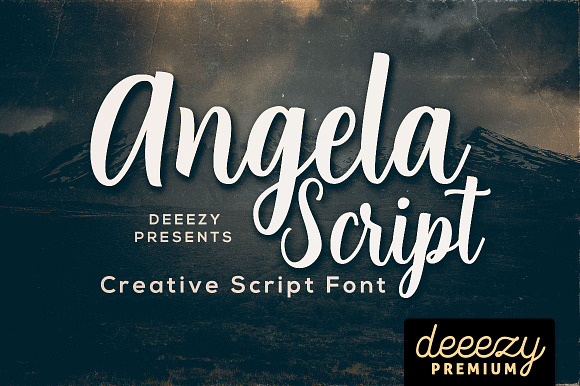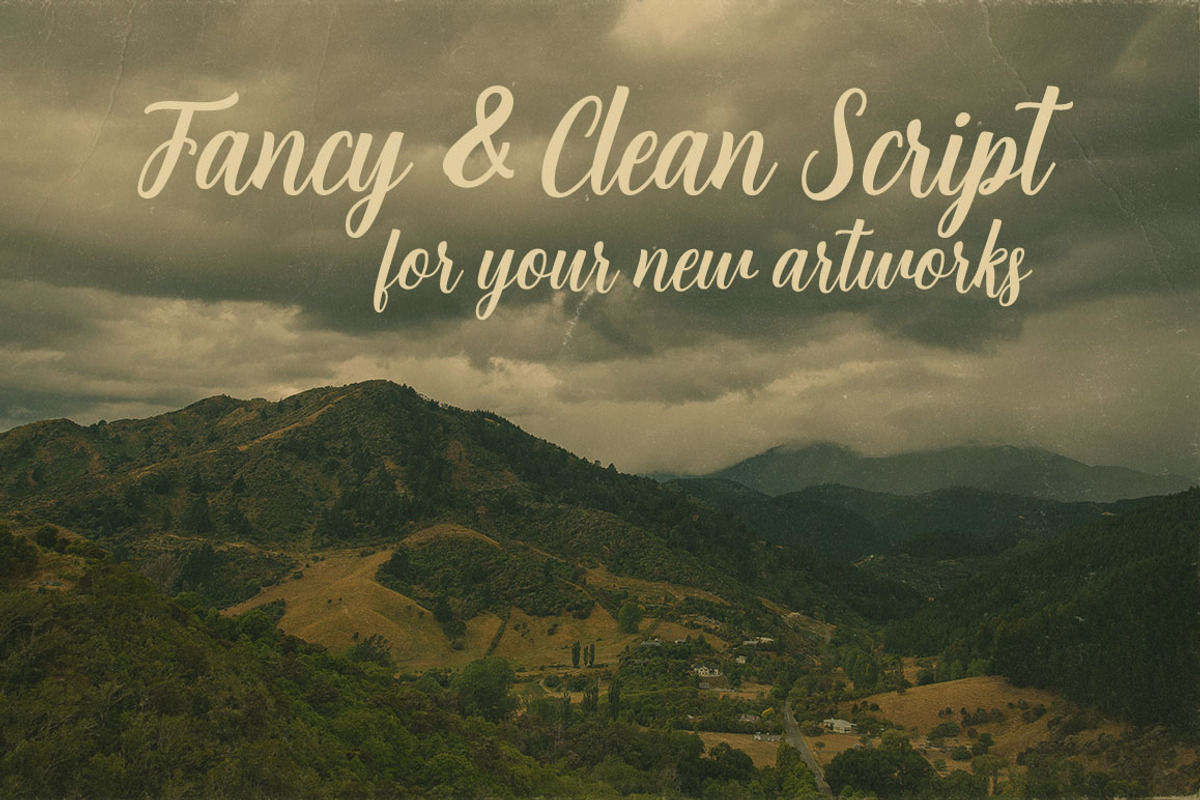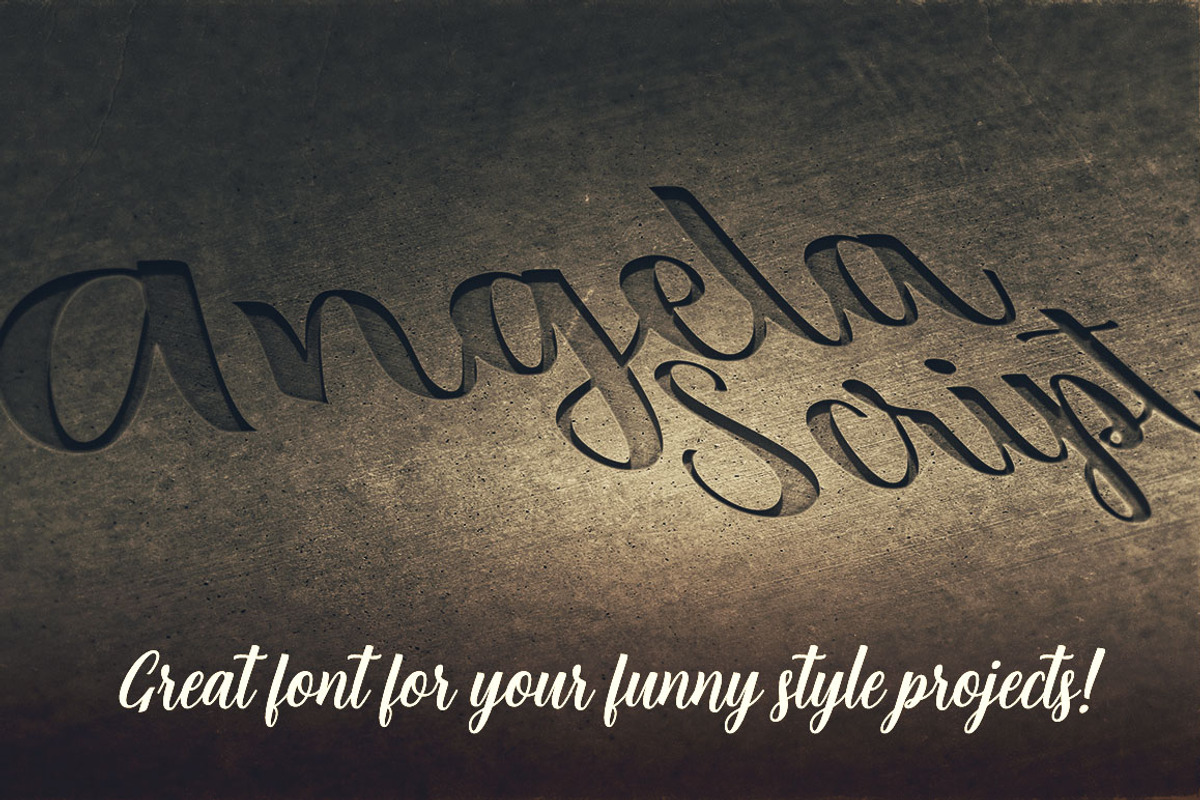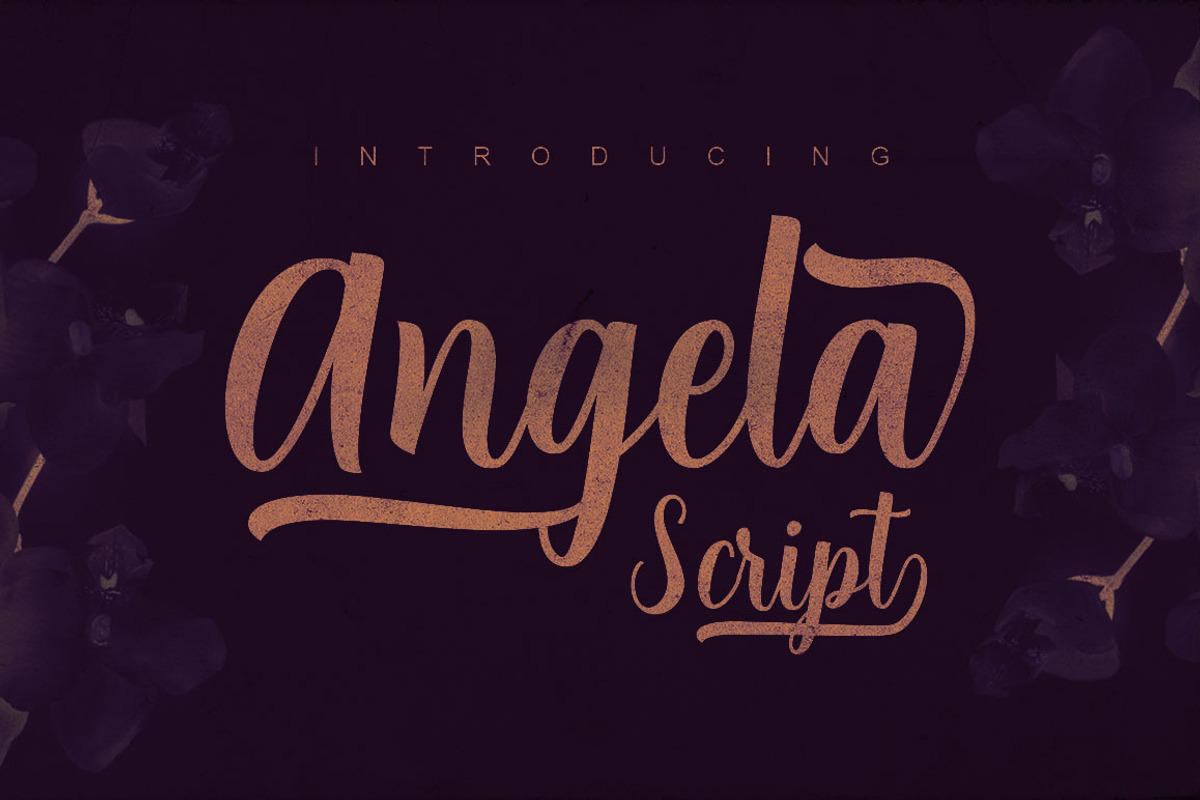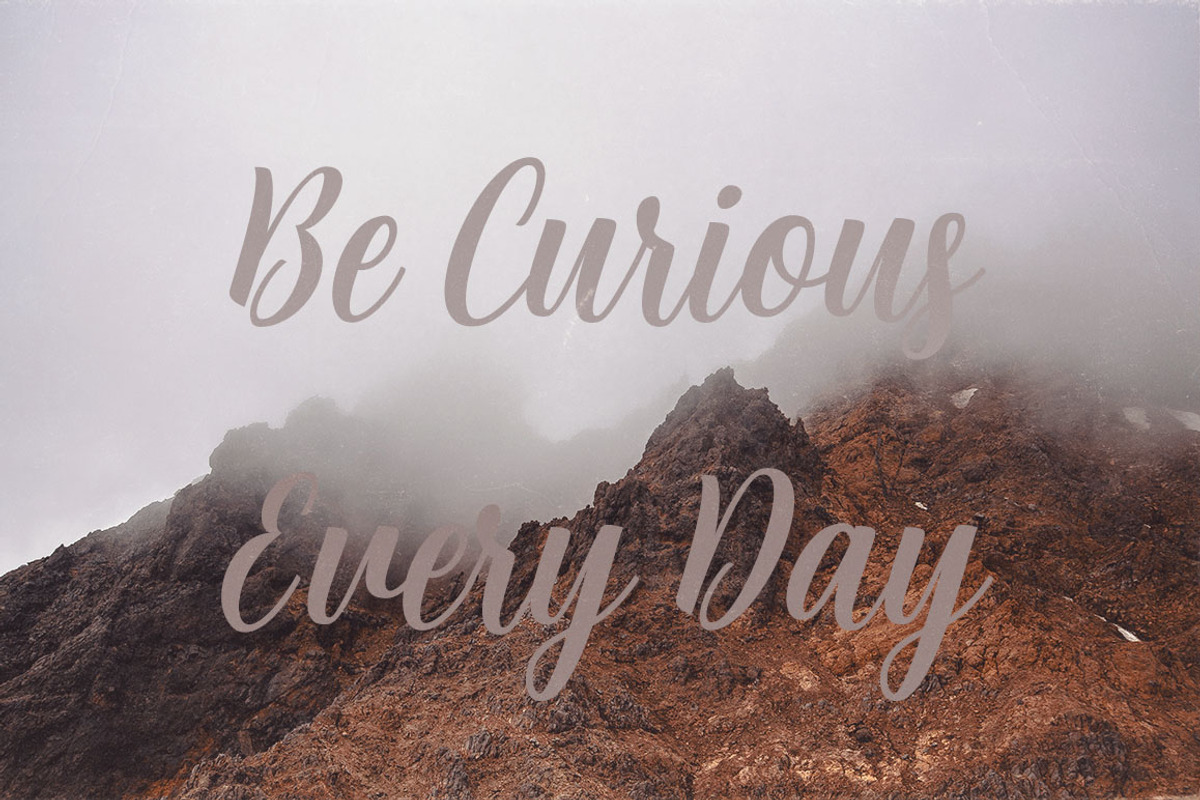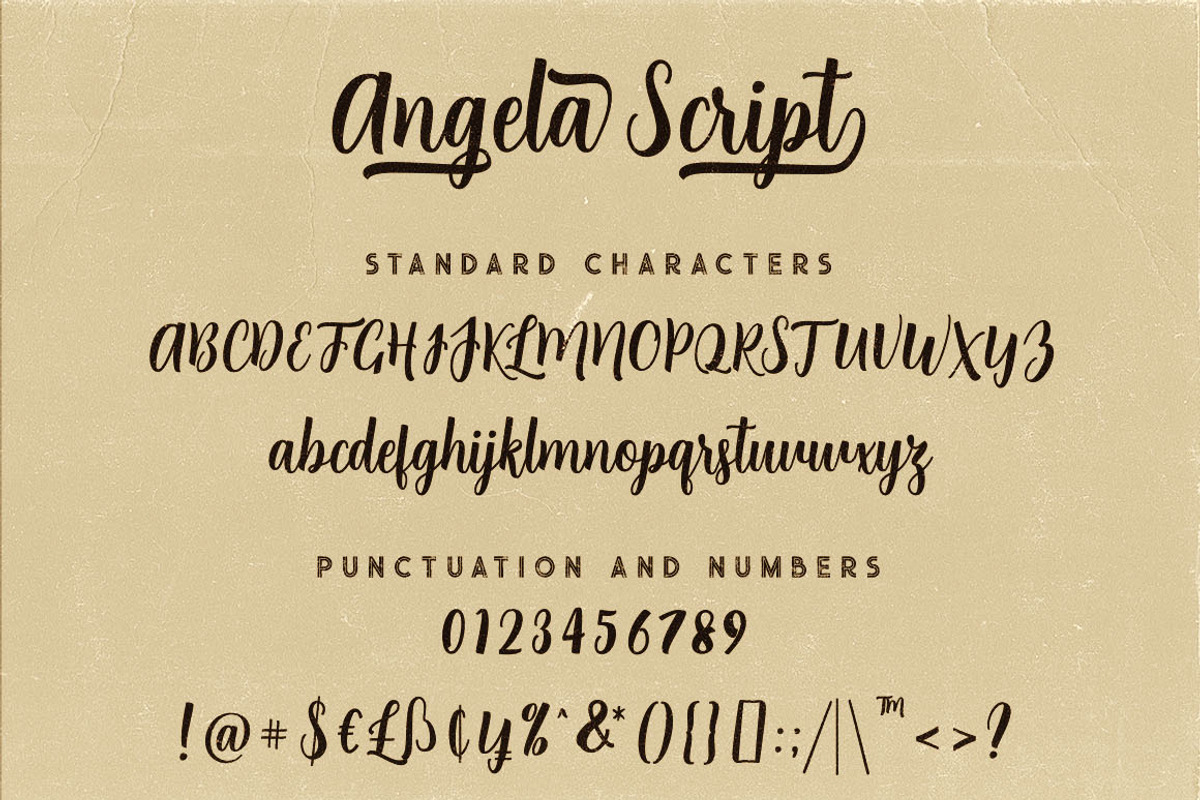
Angela Script Font
Clean and modern style script font for your new projects. With multi language support and lot of stylistic alternates.
- With multi language support and lot of stylistic alternates.
Angela Script Font by Deeezy fits naturally into Branding, posters, packaging, typography.